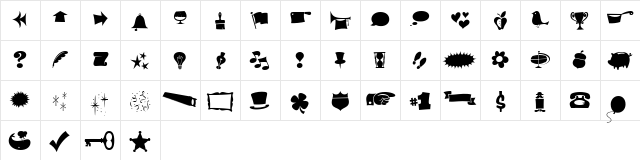
EdTTF Bengbats
| Designer | Ken Barber |
Design Context for EdTTF Typeface
EdTTF is a composed and adaptable typeface that performs quietly and consistently across a wide range of design contexts.